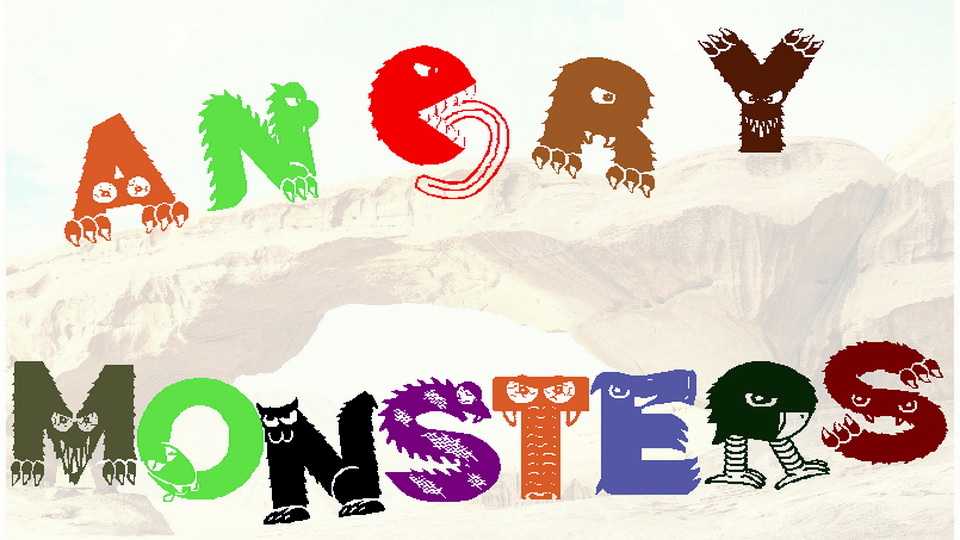
Download Angry Monsters font, a playful and quirky display typeface. Decorative letters are perfect for Halloween celebration, flyers and books and so on.
Designer: Pallmann Foundry